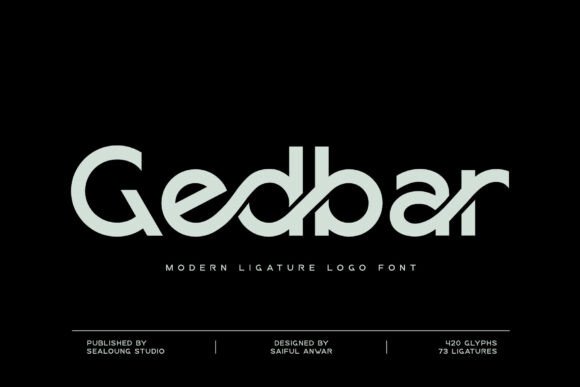
Gedbar: A Modern Sans Serif for Bold Branding
Introduction — What is Gedbar?
In the crowded landscape of digital typography, finding a typeface that balances modernity with readability is a constant challenge. Enter Gedbar, a striking and contemporary Sans Serif designed to elevate your visual communication instantly. If you have been searching for a reliable way to strengthen your brand identity, you might be looking for a Gedbar free download or exploring where to find a legitimate Gedbar font download. This typeface stands out because it does not merely fill space; it commands attention through its clean structure and bold personality.
Unlike generic geometric fonts found in standard software suites, Gedbar offers a unique character that feels both professional and approachable. Whether you are a graphic designer creating a new logo or a marketer crafting social media assets, this font provides the versatility needed for high-impact visuals. Many users initially search to download Gedbar font free to test its capabilities, but what truly sets it apart is how well it performs across various mediums, from screen displays to print materials.
Design & Style Analysis
To understand why Gedbar resonates with modern designers, we must look closely at its construction. It belongs to the Sans Serif family but breaks away from the rigid constraints of pure geometric forms. The design philosophy behind Gedbar focuses on open counters, balanced stroke weights, and a slightly humanist touch that prevents it from feeling cold or robotic.
Letterforms and Visual Personality
The letterforms in Gedbar are crafted with precision. The lowercase 'a' and 'g' feature distinct shapes that improve legibility at smaller sizes, while the uppercase letters maintain a strong presence ideal for headlines. This makes it a top contender among the best Sans Serif fonts for use case scenarios requiring clarity and impact. The mood is confident yet neutral enough to adapt to various industries, from tech startups to lifestyle brands.
Weight and Spacing Dynamics
One of the defining features of Gedbar is its generous spacing and consistent weight distribution. Unlike many premium Sans Serif font options that can feel cramped when set in all caps, Gedbar breathes. The kerning is optimized to ensure that words flow naturally without awkward gaps. This attention to detail makes it a superior choice compared to a standard free Sans Serif font for Fonts collections often found on lesser-known repositories.
Best Uses for Gedbar
Versatility is the hallmark of a great typeface, and Gedbar excels in multiple environments. Its robust structure allows it to shine in applications ranging from corporate identity to personal creative projects. Here is how you can leverage this font effectively in your next project.
Gedbar for Logo Design
When designing a logo, every curve matters. Gedbar is an excellent choice for Gedbar for logo design because its clean lines scale perfectly. Whether you need a minimalist monogram or a wordmark that spans a wide banner, the font retains its integrity. It works particularly well for brands that want to convey stability and innovation simultaneously.
Gedbar for Branding
Consistency is key in any branding strategy. Using Gedbar across your business cards, letterheads, and digital signatures creates a cohesive look. As a tool for Gedbar for branding, it helps establish a professional tone immediately. Its neutral nature ensures it doesn't clash with other brand elements like color palettes or imagery.
Gedbar for Posters and Social Media
In the fast-paced world of social media, headlines need to stop the scroll. Gedbar is perfect for Gedbar for posters/social media/packaging due to its high readability even at a glance. The bold weights stand out against busy backgrounds, making it ideal for Instagram stories, YouTube thumbnails, and promotional flyers. Similarly, its crisp edges make it suitable for product packaging where text needs to be legible from a distance.
Gedbar for Wedding Invitations and Cards
While often associated with corporate work, Gedbar has a refined elegance that fits modern weddings. For couples seeking a contemporary aesthetic, Gedbar for wedding invitations/cards/typography offers a fresh alternative to traditional script-heavy designs. Paired with delicate paper textures, it conveys sophistication without being overly ornate.
Font Pairing & Combinations
No typeface exists in a vacuum. To create a harmonious design, understanding what fonts pair well with Gedbar is essential. Since Gedbar is a strong Sans Serif, it pairs beautifully with contrasting styles to create visual hierarchy.
Ideal Combinations for Professional Projects
A classic approach involves pairing Gedbar with a high-contrast Serif font for body text. This combination creates a sophisticated editorial look, perfect for magazines or luxury websites. Alternatively, if you are looking for a more playful vibe, try combining it with a rounded display font. When considering Gedbar font pairing, always test the contrast between the two families to ensure they complement rather than compete.
Display and Body Text Strategies
For web design, using Gedbar as a header font paired with a highly readable humanist sans-serif for body copy is a winning strategy. This setup maintains the modern aesthetic while ensuring long-form content remains easy to read. These best font combinations with Gedbar will help you achieve a polished, professional finish in your layouts.
Licensing & Commercial Use
Before integrating any font into a client project, understanding the legalities is crucial. A common question among designers is, "is Gedbar free for commercial use?" The answer depends entirely on the specific license attached to the version you acquire. While some platforms may offer a free trial or personal use version, professional application usually requires a paid license.
If you plan to use Gedbar for client work, merchandise, or advertising, you must secure the appropriate Gedbar commercial use rights. Ignoring these terms can lead to legal complications down the line. Always review the Gedbar font license documentation provided by the creator or marketplace. This document will clearly outline whether the font is free for personal projects only or if it includes a commercial tier. Investing in a proper license supports the designer and ensures peace of mind for your business.
How to Download & Use Gedbar
Once you have decided that Gedbar is the right fit for your project, the next step is acquisition. You can typically find this font on reputable marketplaces such as CreativeFabrica, DaFont, or specialized font stores. If you are looking to download Gedbar font free for personal experimentation, ensure you check the usage restrictions carefully.
After downloading, installation is straightforward. On Windows or Mac, simply double-click the file and select "Install." Once installed, Gedbar will appear in your system's font list. For those wondering how to use Gedbar in Canva/Word/Photoshop, the process is seamless. In Adobe Photoshop or Illustrator, just select the text tool and choose Gedbar from the dropdown menu. In Canva, if you have uploaded the font file to your brand kit, it will be available under the "Uploads" tab for immediate use.
Designer Notes & Tips
As with any powerful typeface, mastering Gedbar requires a bit of practice. Here are some practical tips to get the most out of this professional Fonts font.
- Test in Black and White: Before adding colors, check how the font reads in grayscale to ensure the contrast is sufficient.
- Check Small Sizes: Even though Gedbar is legible, verify that the details hold up at 8pt or smaller for footnotes or fine print.
- Review Spacing: Sometimes default tracking looks too tight for short headlines. Manually adjust the letter-spacing for optimal balance.
Finally, consider the comparison aspect. When evaluating Gedbar vs similar font options like Montserrat or Roboto, notice how Gedbar offers a slightly more distinctive character that avoids the overused look of Google's standard offerings. By paying attention to these nuances, you can ensure your designs stand out in a saturated market. Whether you are building a new brand or refreshing an existing one, Gedbar provides the solid foundation you need.